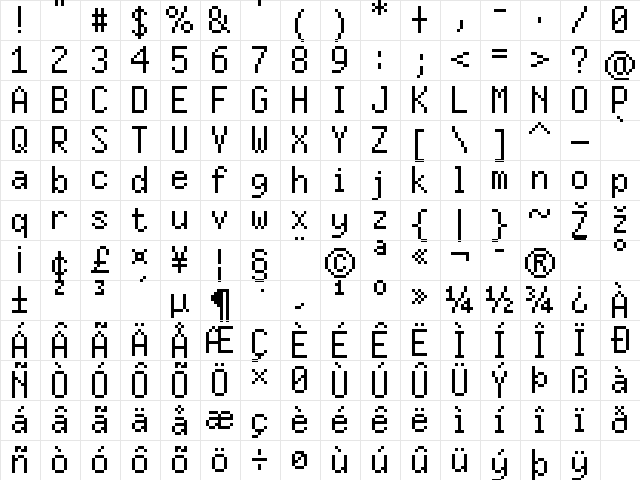
FFF Daylight Regular
Design Context for FFF Daylight Typeface
FFF Daylight is a composed and adaptable typeface that performs quietly and consistently across a wide range of design contexts. Its slender proportions lend an understated elegance to any composition.